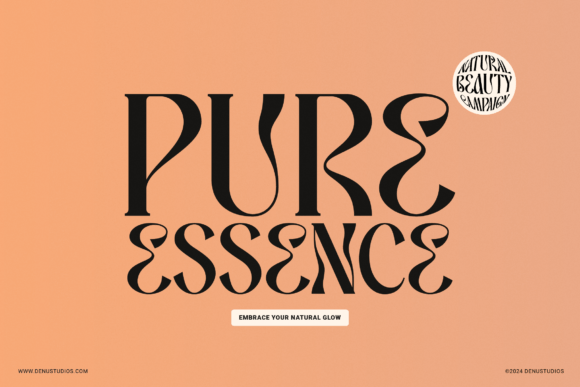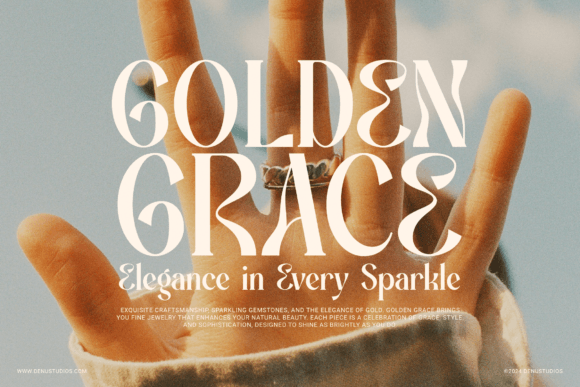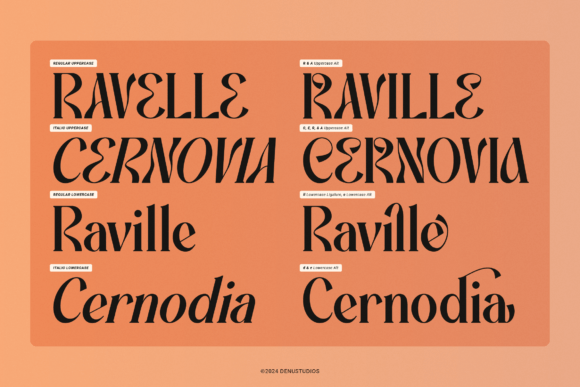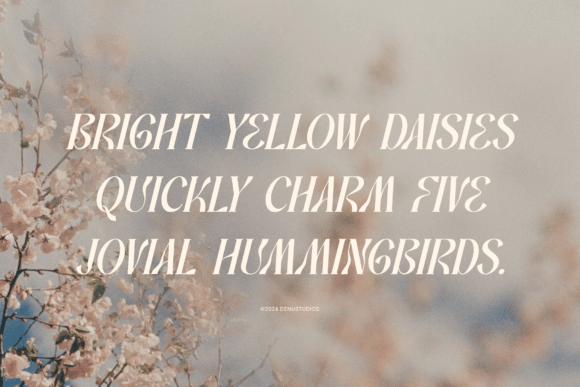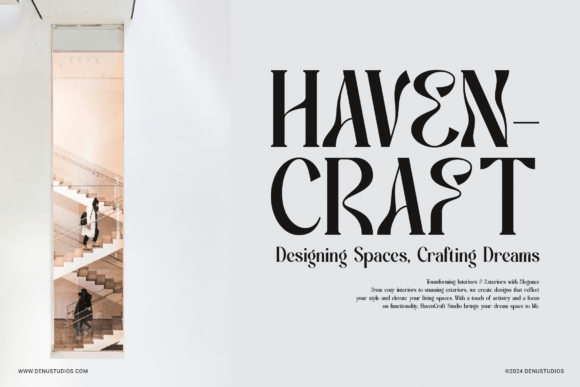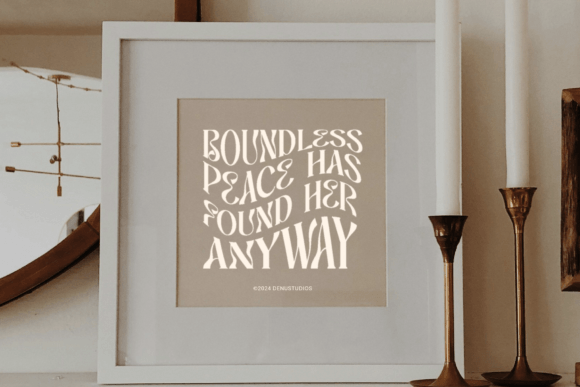
Introduction to Promised Freyna Font
Promised Freyna is a modern serif font with elegant, sharp letterforms.
It combines classic and contemporary styles, making it perfect for stylish and professional designs The font is easy to read, with a clean, sophisticated look that works well in both print and digital projects.
Key Features of Promised Freyna Font
Why Choose Promised Freyna Font?